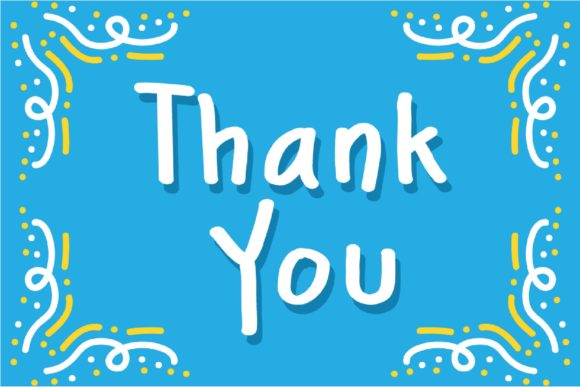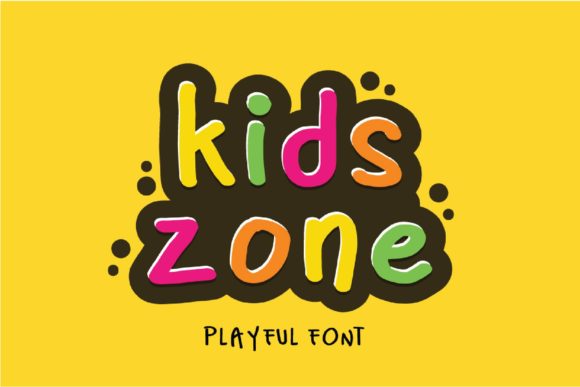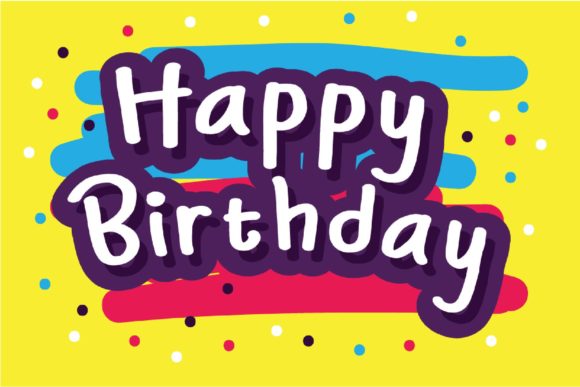
The Perfect Font for Kid-Friendly Designs: Introducing Kids Park Font
Have you ever been brainstorming ideas for a kids’ craft project, only to find yourself stuck on the perfect font to use? The ones that scream “fun” and “playful” are often few and far between. But, what if I told you there’s a font that’s specifically designed to bring a smile to kids’ faces?
Meet the Kids Park Font, a delightful typeface that’s perfect for adding a dash of whimsy to your designs. This font is specifically created to make kids’ crafts and projects pop, with its bold lines and playful characters. Whether you’re a seasoned designer or a crafty parent, the Kids Park Font is a valuable addition to your toolkit.
Kids Park Font Key Features
- Font Family: Kids Park Font is a fun, playful sans-serif font designed specifically for children’s content.
- Character Set: The font includes a wide range of characters, including uppercase and lowercase letters, numbers, and special symbols, making it suitable for various applications.
- Unique Characteristics: Kids Park Font features rounded edges, smooth curves, and a friendly tone, making it perfect for children’s books, educational materials, and other kid-friendly content.
Designer Review: Kids Park Font
Overall, I’d say the Kids Park Font is a decent choice for a children’s theme. ✨ It’s playful and fun, with a friendly, approachable feel that’s perfect for illustrations, labels, or titles in educational materials. The font is highly customizable, allowing you to adjust the size, color, and even add animations to make it more engaging.
- ✨ Playful, child-friendly design
- ✨ Highly customizable with various size, color, and animation options
- ✨ Suitable for illustrations, labels, and titles in educational materials
However, I do have some concerns. ⚠️ The font’s design can feel a bit too childish, which may not be suitable for all children’s content. Additionally, the font’s customization options can be overwhelming, especially for those who are not familiar with design software.
Limitsations:
- ⚠️ May feel too childish for some content
- ⚠️ Customization options can be overwhelming for beginners
Overall, I’d recommend the Kids Park Font for educational materials or children’s content where a playful, approachable design is a must. However, for more mature content or professional designs, you may want to consider other font options.
Tips for Getting the Most Out of Kids Park Font
Here are some tips for getting the most out of the Kids Park Font:
- Use the font for children’s projects, such as birthday invitations or nursery decor.
- Combine the font with playful graphics and colors for a fun and engaging design.
- Experiment with different font sizes and styles to add visual interest to your design.
Common Use Cases for Kids Park Font
The Kids Park Font is commonly used for:
- Children’s birthday invitations and party decorations.
- Nursery decor and wall art.